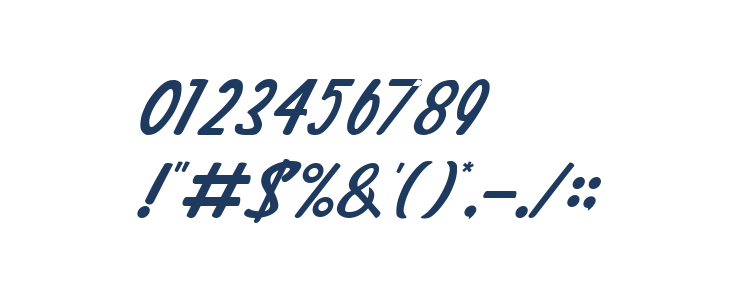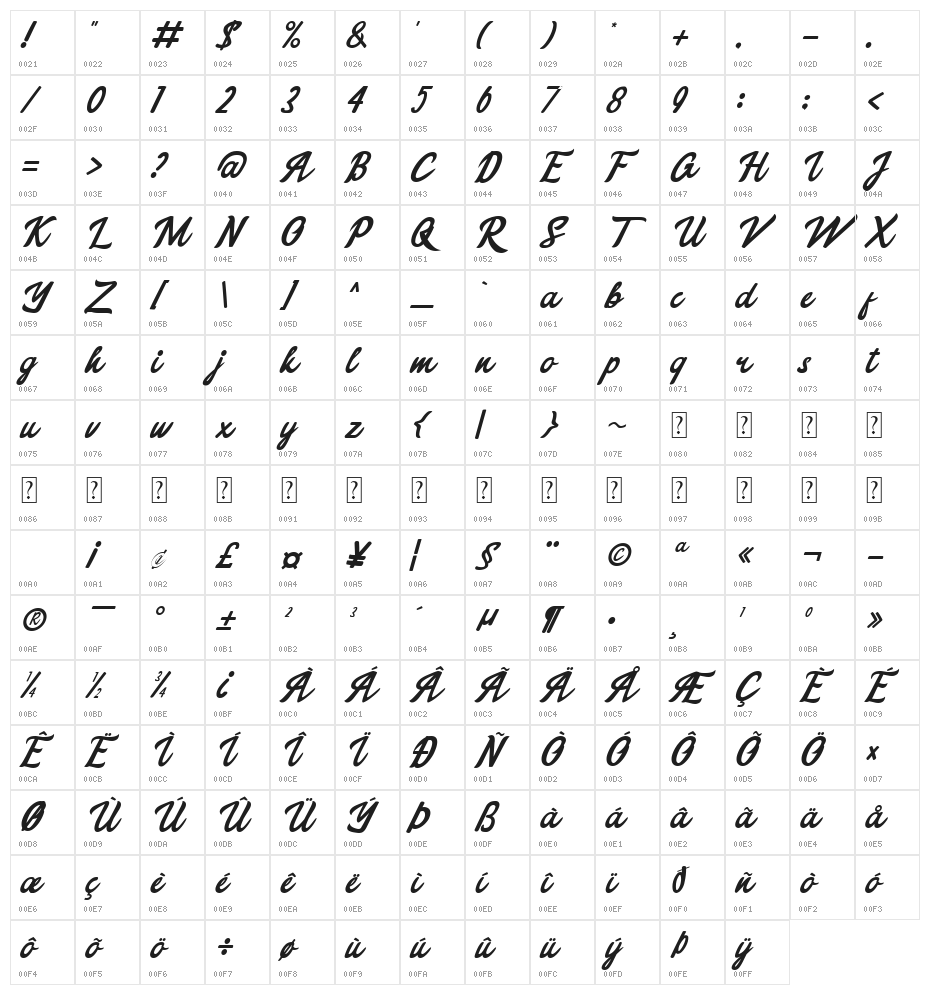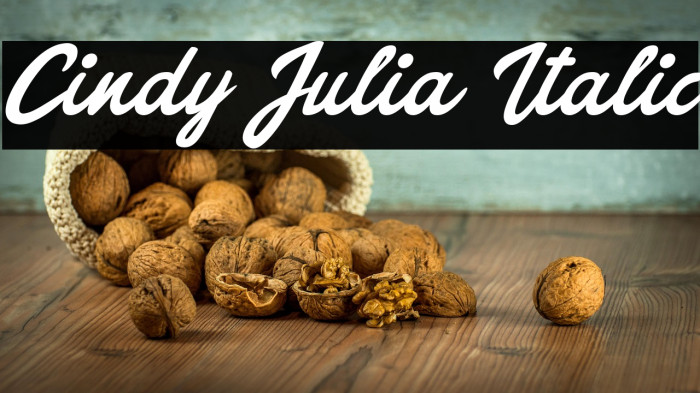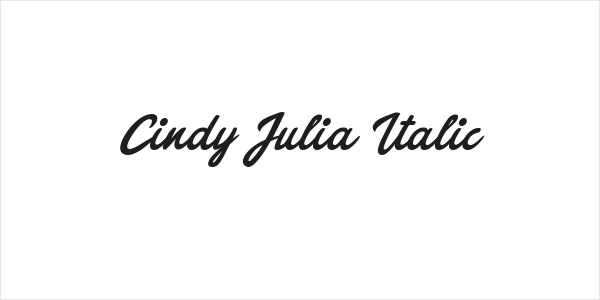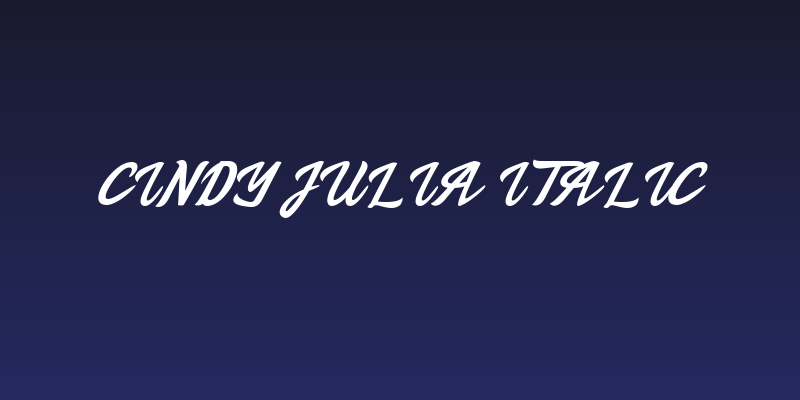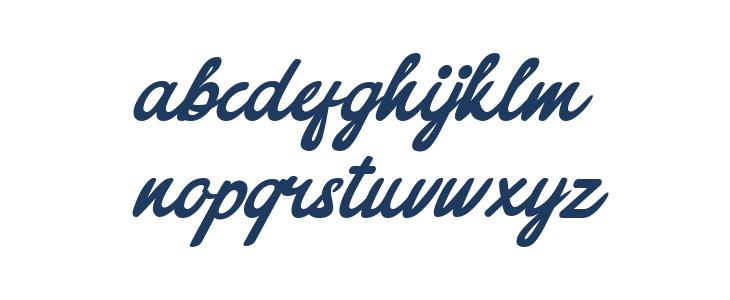
Cindy Julia Italic Font
Cindy Julia Italic Description
This font features a dynamic and flowing script style, characterized by its italicized, cursive appearance. The letters are interconnected with smooth, sweeping strokes that convey a sense of elegance and fluidity. The uppercase letters are bold and prominent, while the lowercase letters maintain a consistent flow, enhancing readability. The numerals are styled to match the cursive theme, with slight slants and curves. Special characters are integrated seamlessly, maintaining the overall aesthetic. This font exudes a sense of sophistication and is ideal for projects that require a touch of elegance and personality.
| Overall Style | Elegant, Decorative |
| Proposed Projects | Ideal for wedding invitations, elegant branding, personal signatures, and decorative headings. |